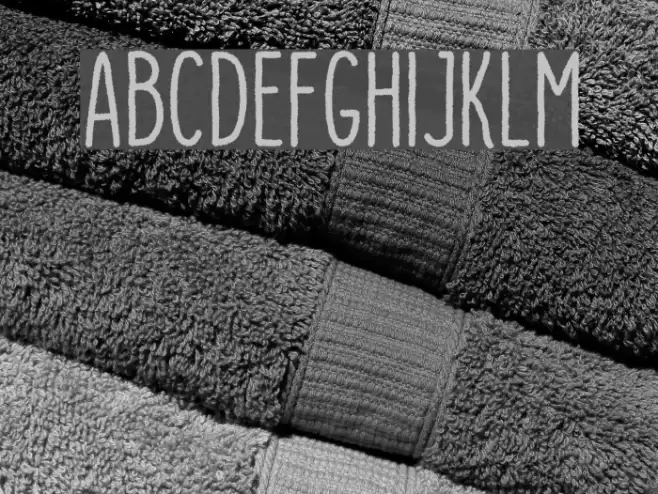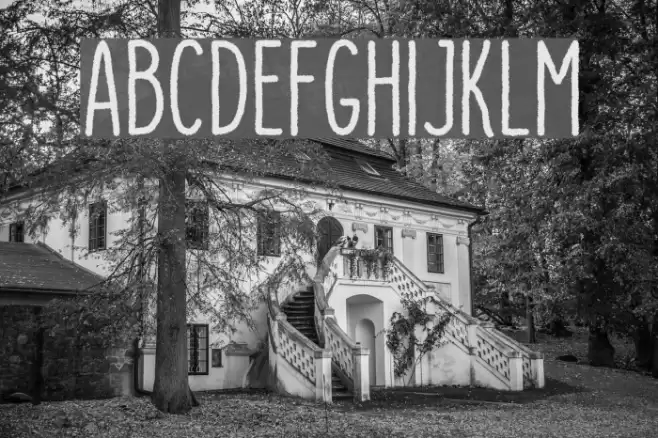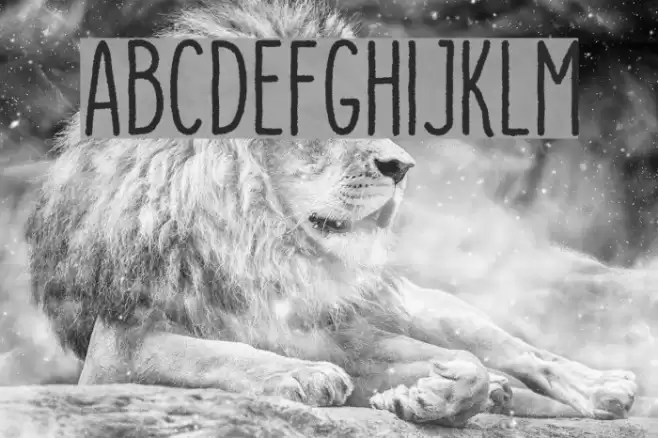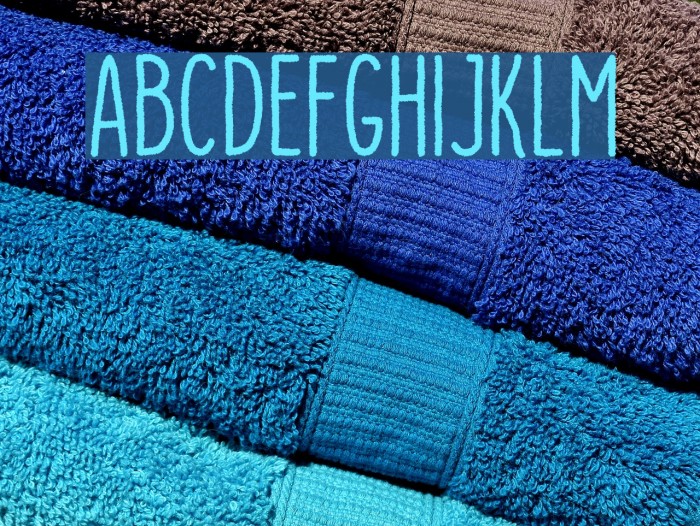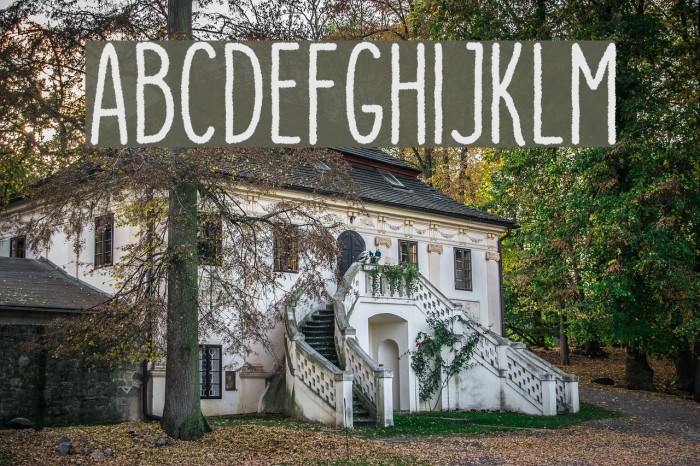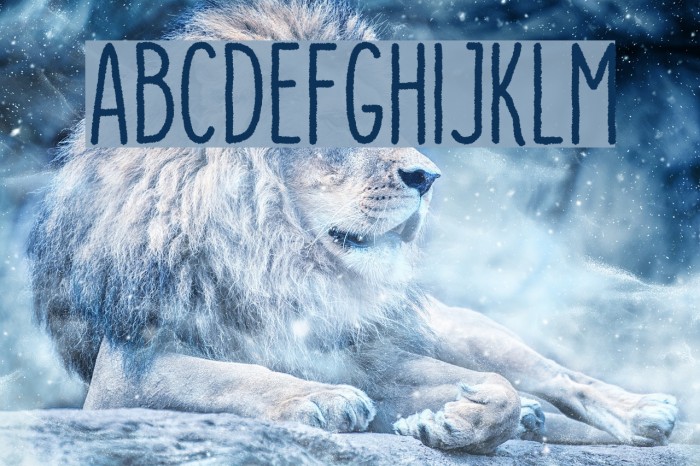
Dutchy Free Rough Font
Dutchy Free Rough Description
This font features a rough, hand-drawn aesthetic with an organic feel. The uppercase letters are tall and narrow, giving a sense of height and elegance, while the lowercase letters maintain a consistent style with slightly rounded edges. The overall texture is rough, suggesting a handcrafted or vintage look. The font's uneven strokes and slight imperfections add character and charm, making it suitable for projects that require a personal touch. The spacing between characters is normal, ensuring readability while maintaining its unique style.
A rough, hand-drawn font with a vintage, organic feel from Uncategorized fonts.
- Proposed Projects: Ideal for branding, packaging, posters, and any design that requires a rustic or handcrafted touch.
- Overall Style: Vintage